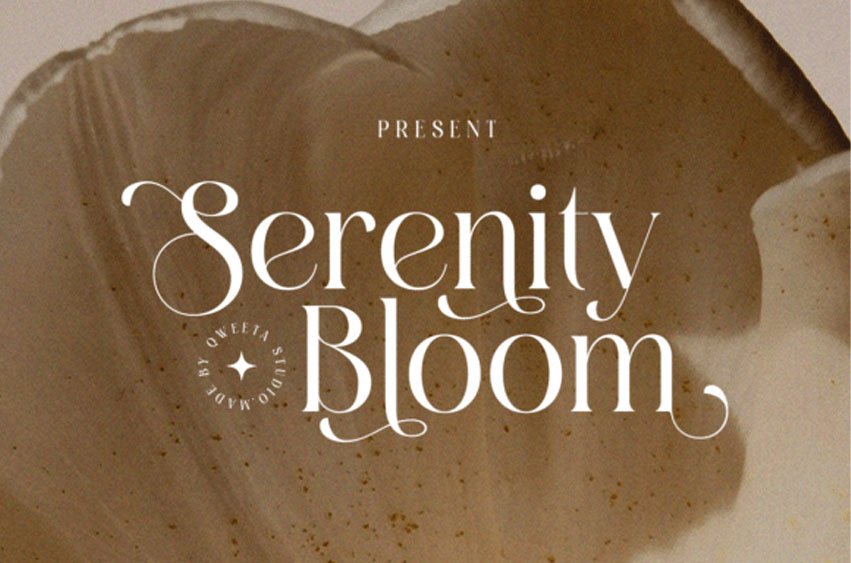
Serenity Bloom Font is a serif typeface crafted with soft femininity and modern editorial elegance. Its flowing curves, airy proportions, and artistic ligatures bring a serene and luxurious presence to any design.
Perfect for boutique branding, floral packaging, lifestyle editorials, or wedding designs—Serenity Bloom offers a harmonious balance of beauty and sophistication.